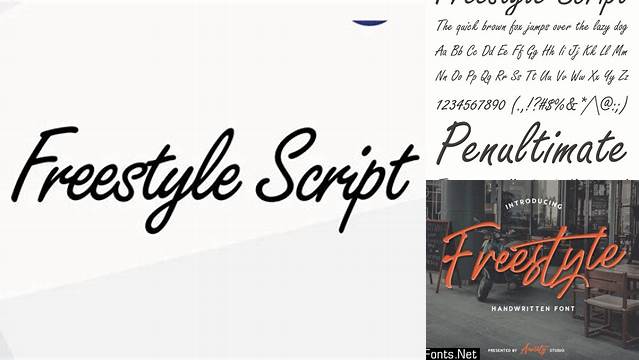
Freestyle Script Font: Your Google Font Guide
Hey guys! Ever stumbled upon a font that just oozes retro vibes and makes you want to break out your roller skates? Chances are, you've seen or heard of Freestyle Script. This font is like the cool kid from the 80s who somehow still manages to look effortlessly stylish today. In this guide, we're diving deep into the world of Freestyle Script, especially how it plays with Google Fonts. So, buckle up, and let's get started!
What is Freestyle Script Font?
Freestyle Script is a signature script font designed by Martin Wait in 1981. Its defining characteristics include a handwritten feel, a slight slant, and irregular, flowing strokes that mimic natural handwriting. This font is known for its informal yet elegant appearance, making it a popular choice for designs that aim to convey creativity, spontaneity, and a personal touch. Whether you're designing invitations, logos, or social media graphics, Freestyle Script can add a unique flair that sets your work apart. But what makes it so appealing, and how has it stood the test of time? Let's delve into its history and design nuances to understand why it remains a favorite among designers and typographers.
The beauty of Freestyle Script lies in its ability to evoke a sense of nostalgia while remaining relevant in contemporary design. Its distinct style makes it easily recognizable, which is crucial for branding and creating a memorable visual identity. The handwritten quality gives designs a human touch, making them more relatable and engaging. In a world dominated by digital precision, Freestyle Script offers a refreshing contrast, reminding us of the beauty of imperfection and the charm of the handmade. This balance between retro charm and modern appeal is what ensures Freestyle Script's continued popularity and relevance in the ever-evolving landscape of graphic design. So next time you're looking to add a bit of personality to your project, remember Freestyle Script—it might just be the perfect font to capture that unique vibe you're aiming for.
Freestyle Script Font History
The history of Freestyle Script is as intriguing as the font itself. Created by Martin Wait in 1981, this font was initially designed for Letraset, a company known for its dry-transfer lettering products. Back in the day, Letraset sheets were a staple for graphic designers, architects, and artists, providing a convenient way to add professional-looking typography to their work. Wait's goal was to create a font that captured the essence of natural handwriting, offering a more personal and informal alternative to the more rigid and formal typefaces available at the time. The result was Freestyle Script, a font characterized by its flowing strokes, irregular letterforms, and distinctive handwritten feel. From its inception, Freestyle Script quickly gained popularity, becoming a go-to choice for designers looking to add a touch of creativity and spontaneity to their projects.
Over the years, Freestyle Script has transitioned from Letraset sheets to digital formats, ensuring its continued relevance in the age of computers and digital design. Today, it is widely available as a digital font, accessible to designers around the world. Its enduring appeal lies in its ability to evoke a sense of nostalgia while remaining versatile enough to be used in a variety of modern applications. Whether it's adding a personal touch to wedding invitations, creating eye-catching logos, or designing engaging social media content, Freestyle Script continues to be a favorite choice for those seeking a font that combines retro charm with contemporary style. Its journey from traditional dry-transfer lettering to digital ubiquity is a testament to its timeless design and lasting impact on the world of typography.
Why Use Freestyle Script Font?
So, why should you even bother with Freestyle Script or its alternatives? Well, this font brings a unique blend of informality and elegance to your designs. It's perfect for projects where you want to convey creativity, spontaneity, and a personal touch. Imagine using it for wedding invitations to give them a handwritten, bespoke feel, or for a logo that needs to stand out with a memorable, slightly quirky aesthetic. The versatility of Freestyle Script makes it suitable for a wide range of applications, from branding to social media graphics. It adds character and charm, making your designs more engaging and relatable.
Moreover, Freestyle Script's handwritten style sets it apart from the more common, sterile fonts often used in digital design. In a world where so much content looks the same, using a font like Freestyle Script can help you create designs that are unique and memorable. It gives your work a human touch, making it feel more authentic and personal. This is especially important in today's digital landscape, where consumers are increasingly seeking out brands and content that feel genuine and relatable. By incorporating Freestyle Script into your designs, you can create a stronger connection with your audience and leave a lasting impression. So, whether you're a seasoned designer or just starting out, consider giving Freestyle Script a try—it might just be the secret ingredient your designs need to shine.
Alternatives to Freestyle Script Font on Google Fonts
Okay, so Freestyle Script isn't on Google Fonts. What are your options? Don't worry, there are some great alternatives that capture a similar handwritten, script-like feel. Let's explore a few that might just become your new favorites!
Dancing Script
Dancing Script is a lively and informal font that brings a sense of playfulness to any design. With its bouncy baseline and varying letter sizes, it mimics the natural rhythm of handwriting, making it a great alternative to Freestyle Script. This font is perfect for projects where you want to convey a sense of fun and spontaneity. Imagine using it for party invitations, quirky logos, or eye-catching social media graphics. Its light and airy feel makes it particularly well-suited for designs that need a touch of whimsy. Dancing Script is also highly legible, ensuring that your message comes across clearly even with its decorative style. The varying stroke weights and playful letterforms give it a unique character that sets it apart from more formal script fonts, making it an excellent choice for adding personality to your designs.
One of the great things about Dancing Script is its versatility. While it excels in informal and playful contexts, it can also be used in more sophisticated designs to add a touch of warmth and personality. For example, it could be used in a blog header to create a friendly and inviting atmosphere, or in a business card to give a memorable and approachable impression. The key is to use it judiciously and pair it with a more neutral font for body text to ensure readability. Dancing Script is also available in a variety of weights, allowing you to fine-tune its appearance to suit your specific needs. Whether you're designing for print or digital media, Dancing Script is a fantastic option for adding a handwritten touch to your projects. So, if you're looking for a font that's both fun and functional, give Dancing Script a try—it might just become your go-to script font for all your creative endeavors.
Pacifico
Pacifico is a smooth, flowing script font that evokes the carefree spirit of the California coastline. Its rounded letterforms and consistent stroke weight give it a friendly and approachable feel, making it a great choice for designs that need a touch of warmth and personality. Inspired by the surf culture of the 1950s, Pacifico brings a retro vibe to any project, reminiscent of vintage signage and hand-painted advertisements. This font is particularly well-suited for logos, headlines, and short blocks of text where you want to make a statement. Its clean lines and clear legibility ensure that your message is easily readable, even at smaller sizes. The consistent spacing between letters adds to its overall visual appeal, creating a harmonious and balanced look. Pacifico is a versatile font that can be used in a variety of contexts, from branding to web design.
One of the best things about Pacifico is its ability to capture a sense of nostalgia without feeling dated. Its classic design makes it timeless, ensuring that it will continue to look good for years to come. It pairs well with a variety of other fonts, from simple sans-serifs to more decorative serifs, allowing you to create a wide range of different looks and feels. Whether you're designing a logo for a surf shop, creating a poster for a summer music festival, or adding a touch of retro charm to your website, Pacifico is an excellent choice. Its smooth, flowing lines and friendly appearance make it a joy to work with, and its versatility ensures that it will be a valuable addition to your font library. So, if you're looking for a script font that's both stylish and functional, give Pacifico a try—you won't be disappointed.
Great Vibes
Great Vibes is an elegant script font that exudes sophistication and grace. Its flowing letterforms and delicate swashes give it a luxurious feel, making it a perfect choice for designs that need a touch of elegance. Inspired by classic calligraphy, Great Vibes is ideal for wedding invitations, formal announcements, and high-end branding materials. Its refined appearance and attention to detail make it a standout choice for projects that demand a sense of sophistication. The graceful curves and balanced proportions of the letters create a harmonious and visually appealing look. Great Vibes is also highly legible, ensuring that your message comes across clearly even with its decorative style. This font is best used for headlines and short blocks of text where you want to make a statement.
One of the key features of Great Vibes is its versatility. While it excels in formal and elegant contexts, it can also be used in more casual designs to add a touch of sophistication. For example, it could be used in a blog header to create a refined and inviting atmosphere, or in a business card to give a polished and professional impression. The key is to use it judiciously and pair it with a more neutral font for body text to ensure readability. Great Vibes is also available in a variety of weights, allowing you to fine-tune its appearance to suit your specific needs. Whether you're designing for print or digital media, Great Vibes is a fantastic option for adding a touch of elegance to your projects. So, if you're looking for a font that's both beautiful and functional, give Great Vibes a try—it might just become your go-to script font for all your sophisticated design endeavors.
How to Use Script Fonts Effectively
Using script fonts like Freestyle Script (or its alternatives) effectively is all about balance and context. Here are some tips to keep in mind:
- Pairing is Key: Don't use script fonts for large blocks of text. They're best for headlines, logos, and short phrases. Pair them with a clean, legible sans-serif or serif font for the body text to ensure readability.
- Consider the Mood: Script fonts can convey different moods, from playful to elegant. Choose a font that matches the overall tone of your design.
- Use Sparingly: Less is often more. Overusing script fonts can make your design look cluttered and difficult to read.
- Test Readability: Always test your design to make sure the script font is legible, especially at smaller sizes.
- Contrast is Your Friend: Ensure there's enough contrast between the script font and the background to make it stand out.
Freestyle Script Font: Licensing and Usage
Before using Freestyle Script, it's important to understand its licensing terms. While the font itself might be widely available, its usage is often governed by specific agreements. Generally, the font can be used for personal projects without any restrictions. However, commercial use, such as in logos or branding materials, may require purchasing a license. This ensures that the font's creator is compensated for their work and that you have the legal right to use the font in your commercial projects.
Additionally, the licensing terms may vary depending on the distributor. Some websites offer Freestyle Script for free but with limited usage rights, while others require a one-time purchase for a commercial license. It's essential to read the fine print and understand the terms before incorporating the font into your designs. If you're unsure about the licensing, it's always best to err on the side of caution and contact the font's distributor for clarification. Using a font without the proper license can lead to legal issues and financial penalties, so it's always better to be safe than sorry. By understanding the licensing terms and respecting the font's creator, you can ensure that you're using Freestyle Script legally and ethically.
Font Pairing Ideas for Freestyle Script Alternatives
When working with script fonts like the Freestyle Script alternatives we discussed, font pairing is crucial. Here are a few ideas to get you started:
- Dancing Script + Montserrat: This pairing combines the playful nature of Dancing Script with the clean, modern look of Montserrat.
- Pacifico + Lato: Pacifico's smooth curves complement Lato's sleek, minimalist design.
- Great Vibes + Open Sans: The elegance of Great Vibes is balanced by the readability of Open Sans.
Experiment with different combinations to find what works best for your project!
The Psychology of Script Fonts
Script fonts, like Freestyle Script, have a unique psychological impact on viewers. They tend to evoke feelings of creativity, warmth, and personalization. This is because they mimic handwriting, which is inherently human and individualistic. Using script fonts can make your designs feel more approachable and engaging, but it's important to use them strategically. Overusing script fonts can dilute their impact and make your design look cluttered. Consider the overall message you want to convey and choose a script font that aligns with those emotions.
Furthermore, the specific style of the script font can also influence its psychological impact. For example, a flowing, elegant script like Great Vibes might evoke feelings of sophistication and luxury, while a more playful script like Dancing Script might evoke feelings of fun and spontaneity. It's important to choose a script font that not only looks good but also accurately reflects the intended message and tone of your design. By understanding the psychology of script fonts, you can use them to create designs that resonate with your target audience on an emotional level, making your message more memorable and impactful. So, when choosing a script font, don't just think about aesthetics—think about the feelings you want to evoke and how the font can help you achieve that.
Freestyle Script Font in Branding
Using Freestyle Script or similar fonts in branding can be a bold move that pays off. A script font can give your brand a unique and memorable identity, especially if you want to convey creativity, personality, or a personal touch. However, it's essential to use it strategically and consider your target audience. A script font might not be suitable for all types of businesses or industries. For example, a law firm might not want to use a script font in its logo, as it might not convey the desired sense of professionalism and authority.
On the other hand, a small business that specializes in handmade crafts or artisanal goods might find that a script font perfectly captures its brand's essence. The key is to understand your brand's identity and values and choose a font that aligns with those elements. When using Freestyle Script or a similar font in your branding, consider the overall design and how it will be used across different platforms. A script font that looks great on a website might not be as legible on a business card or a mobile app. It's essential to test your design and make sure it looks good in all contexts. Additionally, consider using a script font in conjunction with a more neutral font to create a balanced and professional look. By carefully considering these factors, you can use script fonts to create a brand identity that is both unique and effective.
The Future of Script Fonts in Design
The future of script fonts in design looks bright. As technology continues to evolve, we can expect to see even more innovative and creative ways to use script fonts. One trend to watch is the integration of variable fonts, which allow designers to customize the weight, width, and other characteristics of a font, giving them even more control over the final look. This opens up new possibilities for creating unique and personalized designs with script fonts like Freestyle Script.
Another trend to watch is the use of artificial intelligence (AI) in font design. AI can be used to generate new fonts, optimize existing fonts, and even create personalized fonts based on a user's handwriting style. This could lead to a new era of hyper-personalized typography, where designers can create fonts that are perfectly tailored to their clients' needs. Additionally, as virtual reality (VR) and augmented reality (AR) become more prevalent, we can expect to see script fonts used in new and exciting ways in these immersive environments. Whether it's creating handwritten notes in a VR meeting room or adding a touch of personality to an AR shopping experience, script fonts will likely play a key role in shaping the future of digital design. So, if you're a designer or typographer, now is the time to start experimenting with script fonts and exploring the possibilities of these emerging technologies.
Calligraphy and Freestyle Script Font
Freestyle Script's charm lies in its resemblance to calligraphy. Calligraphy, the art of beautiful writing, has a long and rich history, influencing many script fonts we see today. Understanding the principles of calligraphy can help you appreciate and use Freestyle Script more effectively. Calligraphy emphasizes rhythm, balance, and the interplay of thick and thin strokes. When using Freestyle Script, try to mimic these qualities to create a more visually appealing design. Pay attention to the spacing between letters and words, and experiment with different weights and sizes to achieve a sense of harmony and balance. You can also use calligraphy techniques to add flourishes and embellishments to your designs, giving them a unique and personalized touch.
Furthermore, studying calligraphy can inspire you to create your own custom script fonts. By understanding the anatomy of letters and the principles of stroke construction, you can develop your own unique style and create fonts that reflect your personality and artistic vision. There are many resources available online and in libraries that can help you learn the basics of calligraphy, from beginner's guides to advanced tutorials. You can also take a calligraphy class to learn from an experienced instructor and receive personalized feedback. Whether you're a designer, typographer, or simply someone who loves beautiful writing, exploring the world of calligraphy can be a rewarding and enriching experience that enhances your appreciation for script fonts like Freestyle Script.
Common Mistakes When Using Script Fonts
Even though script fonts like Freestyle Script can add a touch of elegance and personality to your designs, they can also be misused. Here are some common mistakes to avoid:
- Overuse: Don't use script fonts for large blocks of text. They're best for headlines, logos, and short phrases. Overusing script fonts can make your design look cluttered and difficult to read.
- Poor Legibility: Choose a script font that is easy to read, especially at smaller sizes. Avoid fonts with overly ornate or complex letterforms.
- Inconsistent Styling: Maintain a consistent style throughout your design. Don't mix too many different script fonts or use them in inconsistent ways.
- Ignoring Hierarchy: Use different font sizes and weights to create a clear visual hierarchy. Make sure the most important information stands out.
- Not Considering the Audience: Choose a script font that is appropriate for your target audience. A font that appeals to young children might not be suitable for a professional business presentation.
How to Pair Freestyle Script Font with Images
Pairing fonts with images is a critical aspect of design, and it's no different when working with Freestyle Script or its alternatives. The goal is to create a harmonious visual experience where the font and image complement each other, enhancing the overall message. When choosing images to pair with script fonts, consider the mood and tone you want to convey. For example, if you're using a playful script font like Dancing Script, you might pair it with colorful and whimsical illustrations. On the other hand, if you're using a more elegant script font like Great Vibes, you might pair it with sophisticated and understated photographs.
Additionally, pay attention to the color palette and overall composition of your design. Make sure the font and image work together visually, creating a cohesive and balanced look. You can also use the font and image to create a sense of contrast and visual interest. For example, you might pair a bold script font with a minimalist image, or a delicate script font with a vibrant and detailed photograph. Experiment with different combinations and see what works best for your project. Remember, the key is to create a visual experience that is both aesthetically pleasing and effectively communicates your message. So, when choosing images to pair with script fonts, don't just focus on aesthetics—think about how the font and image work together to tell a story.
Freestyle Script Font and Web Design
Using Freestyle Script or its alternatives in web design can add a touch of personality and uniqueness to your website. However, it's crucial to use them judiciously to ensure readability and user experience. Script fonts are best used for headings, logos, and short bursts of text, rather than for large blocks of content. When choosing a script font for your website, make sure it's easy to read and renders well on different devices and browsers. Test the font on various screen sizes and resolutions to ensure it looks good across the board.
Additionally, consider the loading time of your website. Some script fonts can be large and slow to load, which can negatively impact your website's performance. Optimize your fonts for web use and consider using a font hosting service like Google Fonts or Adobe Fonts to improve loading times. Furthermore, pay attention to the color contrast between the font and background. Make sure the font is legible and stands out against the background color. Use a color contrast checker to ensure that your website meets accessibility standards. By carefully considering these factors, you can use script fonts to create a website that is both visually appealing and user-friendly.
Creating a Logo with Freestyle Script Font Alternatives
Crafting a logo with Freestyle Script alternatives requires a keen eye for design and a deep understanding of your brand's identity. A logo is the face of your brand, so it's essential to choose a font that accurately reflects your values and personality. When using script fonts in a logo, consider the overall message you want to convey. Do you want to project a sense of elegance and sophistication, or a more playful and whimsical vibe? Choose a font that aligns with those elements. Additionally, pay attention to the legibility of the font. Make sure it's easy to read, even at smaller sizes.
Simplify your logo design and avoid adding too many elements. A clean and minimalist logo is often more effective than a complex and cluttered one. Consider using a script font in conjunction with a more neutral font to create a balanced and professional look. Experiment with different font sizes, weights, and colors to see what works best for your logo. Additionally, test your logo on various backgrounds and in different contexts to ensure it looks good across the board. Get feedback from others and be open to making changes based on their suggestions. Remember, a great logo is a result of careful planning, experimentation, and refinement. So, take your time, be creative, and don't be afraid to try new things.
Freestyle Script Font and Social Media Graphics
Freestyle Script and its alternatives can be a fantastic way to make your social media graphics stand out. A well-chosen script font can add a touch of personality and creativity to your posts, helping you capture the attention of your audience. When using script fonts in social media graphics, consider the platform you're designing for. Different platforms have different design requirements and limitations. For example, Instagram is a highly visual platform, so your graphics should be eye-catching and visually appealing. On the other hand, Twitter has a character limit, so your text should be concise and to the point.
Use script fonts strategically and avoid overusing them. Script fonts are best used for headlines, captions, and short bursts of text. Use a more neutral font for the body text to ensure readability. Additionally, pay attention to the color palette and overall composition of your graphics. Make sure the font and background colors complement each other and that the design is visually balanced. Use high-quality images and illustrations to enhance the overall look of your graphics. Furthermore, test your graphics on different devices and screen sizes to ensure they look good across the board. Keep your social media graphics fresh and engaging by experimenting with different fonts, colors, and design elements. By following these tips, you can use script fonts to create social media graphics that are both visually appealing and effective at communicating your message.
Freestyle Script Font and Print Design
Freestyle Script and its alternatives can add a touch of elegance and personality to your print designs, whether you're creating brochures, posters, invitations, or business cards. When using script fonts in print design, it's crucial to ensure that the font is legible, even at smaller sizes. Choose a font that has clear and well-defined letterforms and avoid fonts with overly ornate or complex designs. Consider the paper stock you're using and how the font will appear on it. Some paper stocks may cause the font to appear blurry or distorted, so it's essential to test your design before printing a large quantity.
Additionally, pay attention to the color palette and overall composition of your design. Make sure the font and background colors complement each other and that the design is visually balanced. Use high-resolution images and illustrations to ensure that your print materials look professional and polished. Furthermore, proofread your design carefully to catch any errors or typos before printing. Consider the overall message you want to convey and choose a script font that aligns with those emotions. By following these tips, you can use script fonts to create print designs that are both visually appealing and effective at communicating your message.
Accessibility Considerations for Script Fonts
When using script fonts like Freestyle Script, it's crucial to consider accessibility. Not all users can easily read script fonts, especially those with visual impairments or learning disabilities. To ensure that your designs are accessible to everyone, follow these guidelines:
- Use Script Fonts Sparingly: Limit the use of script fonts to headlines and short phrases. Use a more legible font for the body text.
- Choose a Legible Script Font: Select a script font that has clear and well-defined letterforms. Avoid fonts with overly ornate or complex designs.
- Provide Alternative Text: For images that contain script fonts, provide alternative text that describes the content of the image.
- Use Sufficient Color Contrast: Ensure that there is sufficient color contrast between the script font and the background. Use a color contrast checker to verify that your design meets accessibility standards.
- Allow Users to Adjust Font Size: Enable users to adjust the font size on your website or app. This will allow users with visual impairments to increase the font size to a level that is comfortable for them.
Advanced Typography Techniques with Script Fonts
To elevate your designs with Freestyle Script alternatives, explore advanced typography techniques. Kerning, tracking, and leading are essential for refining the appearance of script fonts. Adjusting the kerning (the space between individual letters) can improve the legibility and visual appeal of your text. Tracking (the overall spacing between letters) can be used to create a more open or condensed look. Leading (the space between lines of text) can improve the readability of multi-line headings or captions.
Experiment with different font weights and styles to create visual hierarchy and emphasis. Use bold or italic styles to highlight important words or phrases. Additionally, consider using ligatures, which are special characters that combine two or more letters into a single glyph. Ligatures can add a touch of elegance and sophistication to your designs. Furthermore, explore the use of OpenType features, which allow you to access advanced typographic options such as stylistic alternates, swashes, and contextual alternates. These features can help you create unique and personalized designs with script fonts.
Where to Find Inspiration for Using Script Fonts
Looking for inspiration on how to use Freestyle Script or its alternatives? There are countless resources available online and in print. Design blogs and websites like Dribbble, Behance, and Awwwards showcase a wide range of creative projects that incorporate script fonts. Social media platforms like Pinterest and Instagram are also great sources of inspiration. Follow designers and typographers whose work you admire and pay attention to how they use script fonts in their designs.
In addition to online resources, consider exploring print materials such as magazines, books, and posters. Visit local design studios and galleries to see examples of typography in action. Attend design conferences and workshops to learn from industry experts and network with other designers. Furthermore, pay attention to the world around you. Look for examples of script fonts in signage, packaging, and advertising. By actively seeking out inspiration and observing how others use script fonts, you can develop your own unique style and create designs that are both visually appealing and effective at communicating your message.
Troubleshooting Common Issues with Script Fonts
Even with the best planning, you might encounter issues when using Freestyle Script or its alternatives. Here are some common problems and how to fix them:
- Font Not Displaying Correctly: Make sure the font is properly installed on your system and that your design software supports it. Clear your font cache and restart your computer.
- Poor Legibility: Choose a more legible script font or increase the font size. Adjust the kerning, tracking, and leading to improve readability.
- Font Rendering Issues: Optimize the font for web use and consider using a font hosting service like Google Fonts or Adobe Fonts. Test the font on different devices and browsers.
- Licensing Problems: Make sure you have the proper license to use the font for your intended purpose. Contact the font's distributor for clarification if needed.
- Font Pairing Conflicts: Experiment with different font pairings to find a combination that works well together. Use a font pairing tool to get suggestions.
Final Thoughts on Freestyle Script Font
Freestyle Script may not be on Google Fonts, but that shouldn't stop you from exploring the world of script fonts! With a little creativity and the right alternatives, you can add a touch of personality and elegance to your designs. Remember to consider legibility, context, and licensing when choosing a script font, and don't be afraid to experiment with different pairings and techniques. Happy designing!